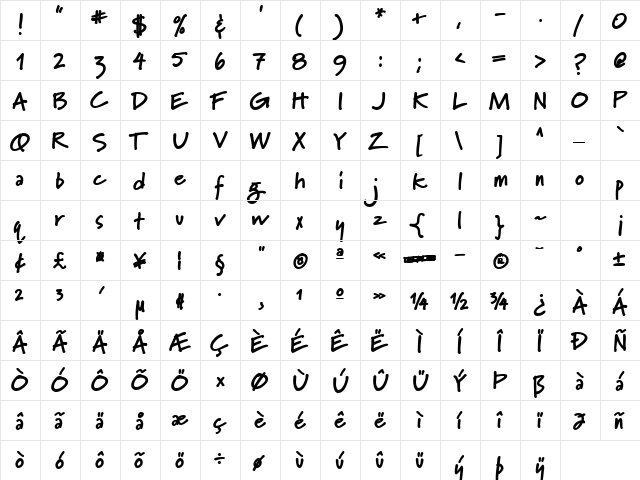
MarydaleBlack Regular
Design Context for MarydaleBlack Typeface
MarydaleBlack is a composed and adaptable typeface that performs quietly and consistently across a wide range of design contexts.